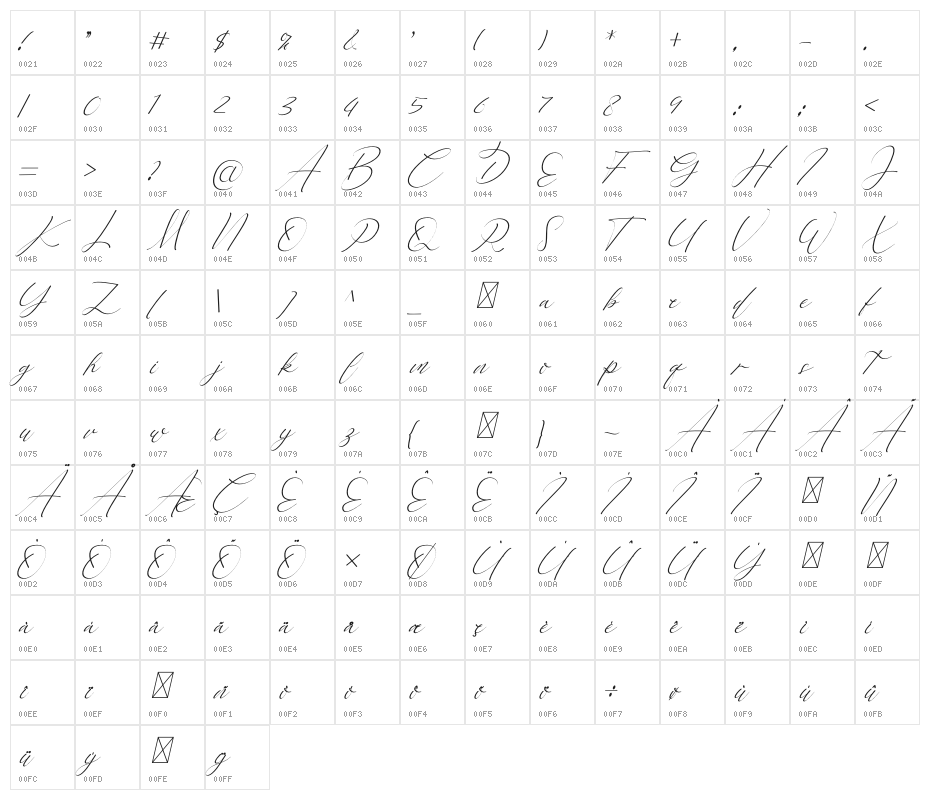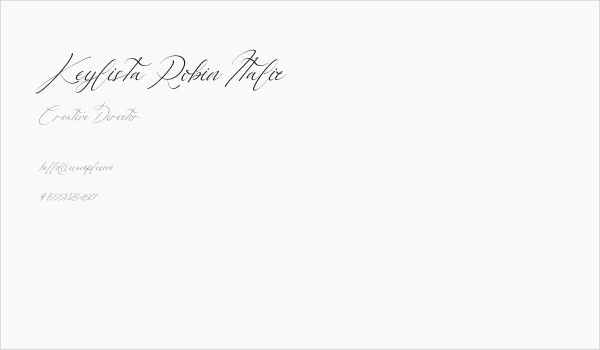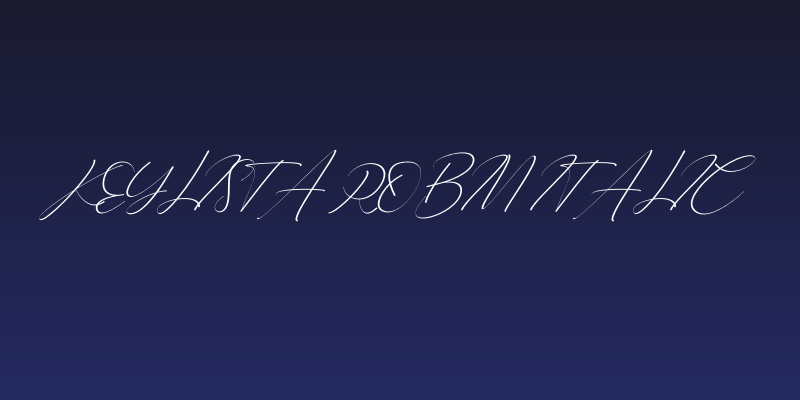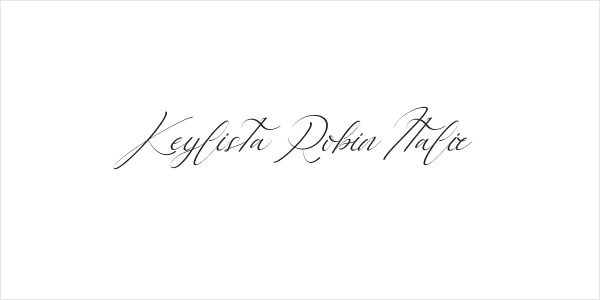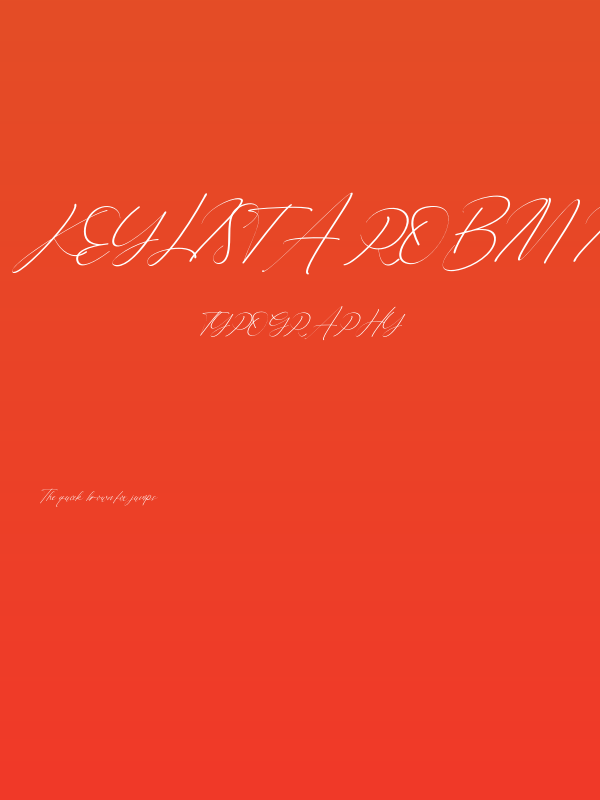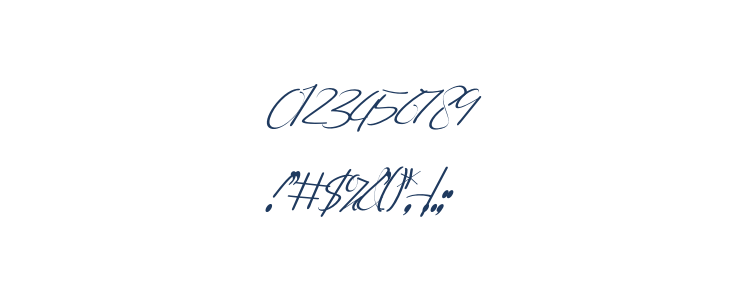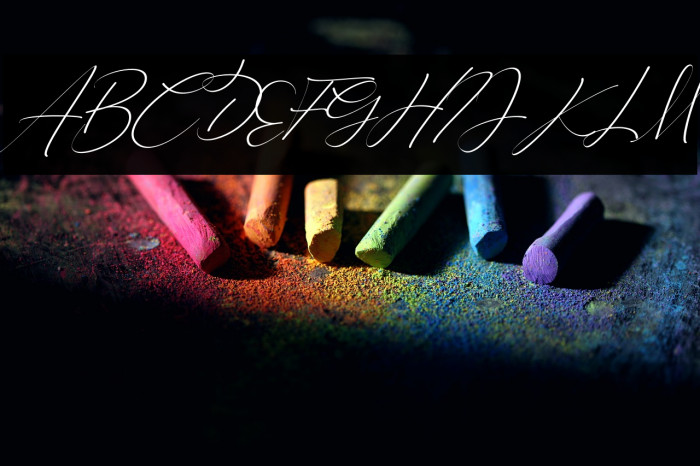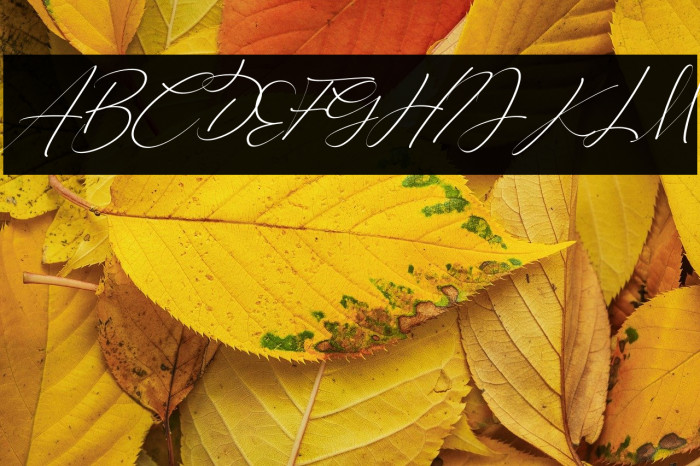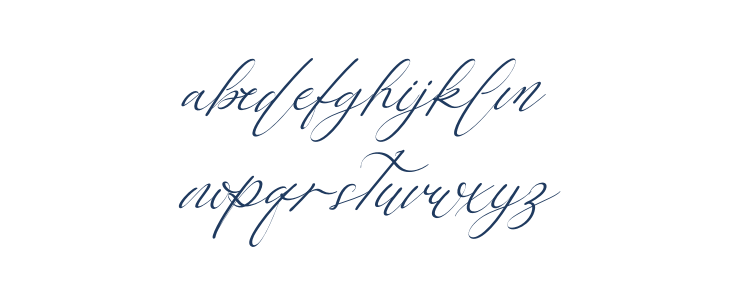
Keylista Robin Italic Font
Keylista Robin Italic Description
This elegant script font features a flowing, cursive style with a sophisticated and artistic flair. The letters are interconnected with smooth, sweeping strokes that give a sense of fluidity and grace. The uppercase letters are tall and slender, with distinctive loops and curves, while the lowercase letters maintain a consistent rhythm and balance. The numerals and special characters are designed to complement the overall aesthetic, adding a touch of refinement. This font is perfect for projects that require a personal, handwritten touch, such as invitations, greeting cards, and branding materials.
| Overall Style | Elegant, Artistic |
| Use Case | Invitations, Branding, Artistic projects |
| Proposed Projects | Ideal for wedding invitations, elegant branding, personal stationery, and artistic projects. |